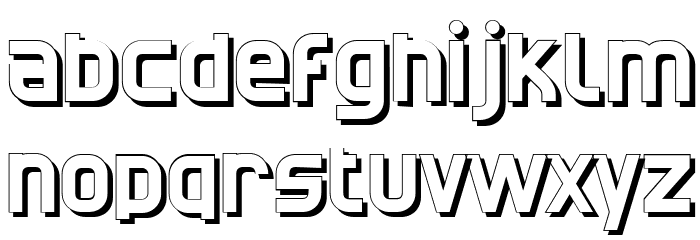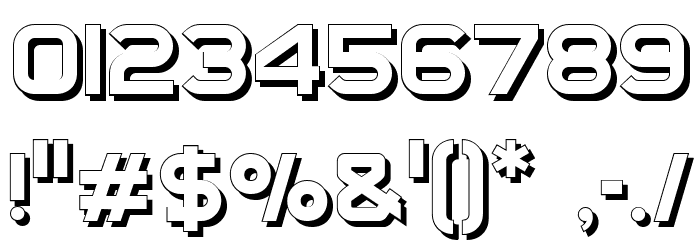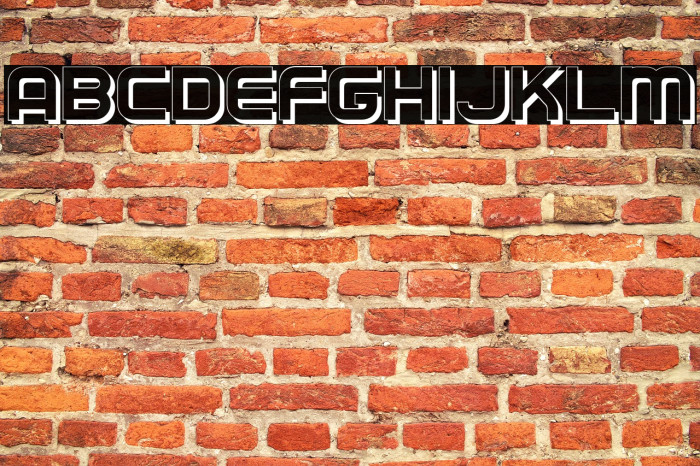
CATNorthShadow Font
This font features a bold, geometric design with a distinct shadow effect that gives it a three-dimensional appearance. The uppercase and lowercase letters are consistent in style, with clean lines and sharp angles that convey a modern and futuristic aesthetic. The numerals and special characters maintain the same design principles, ensuring uniformity across all glyphs. The shadow effect adds depth, making it suitable for eye-catching displays. The overall look is sleek and contemporary, ideal for projects that require a strong visual impact.
A bold, geometric font with a three-dimensional shadow effect.
- Proposed Projects: Ideal for branding, posters, headlines, and any design needing a modern, impactful look.